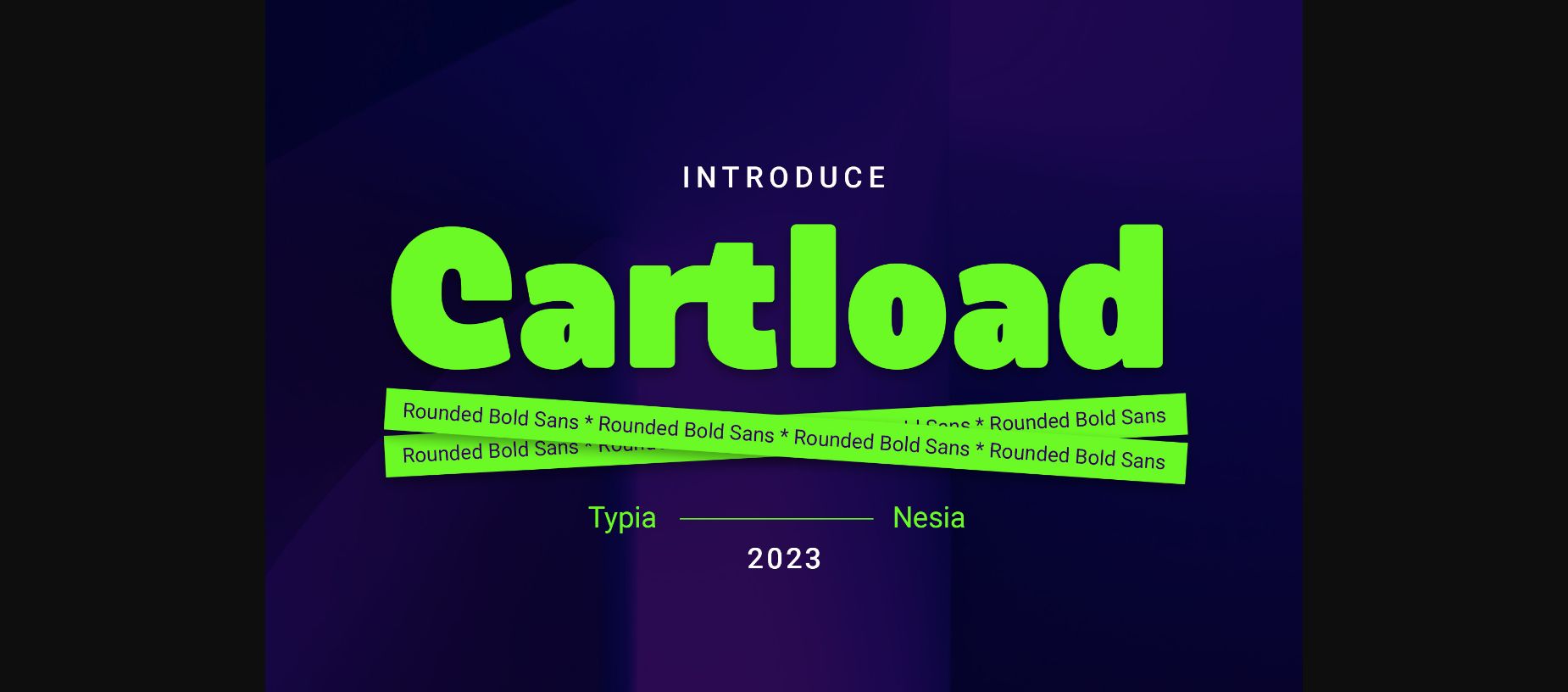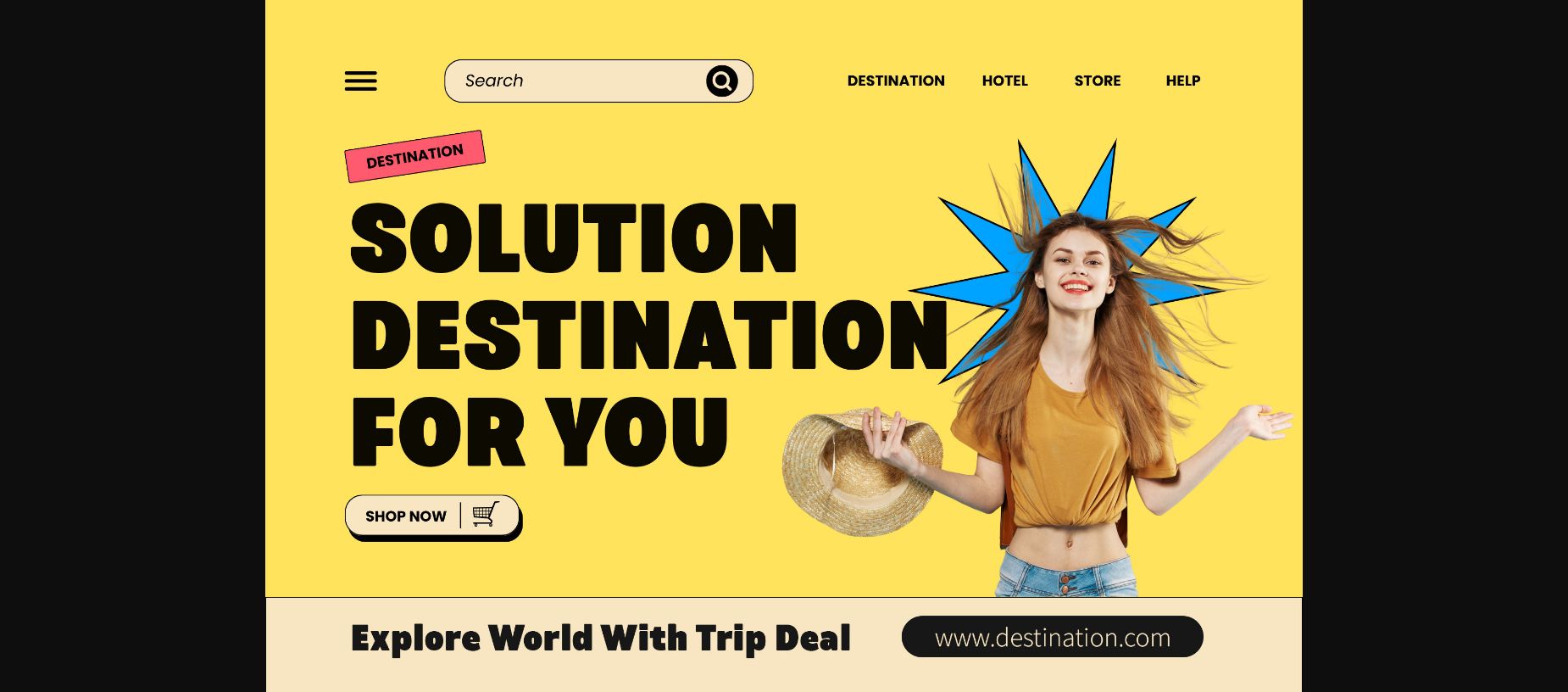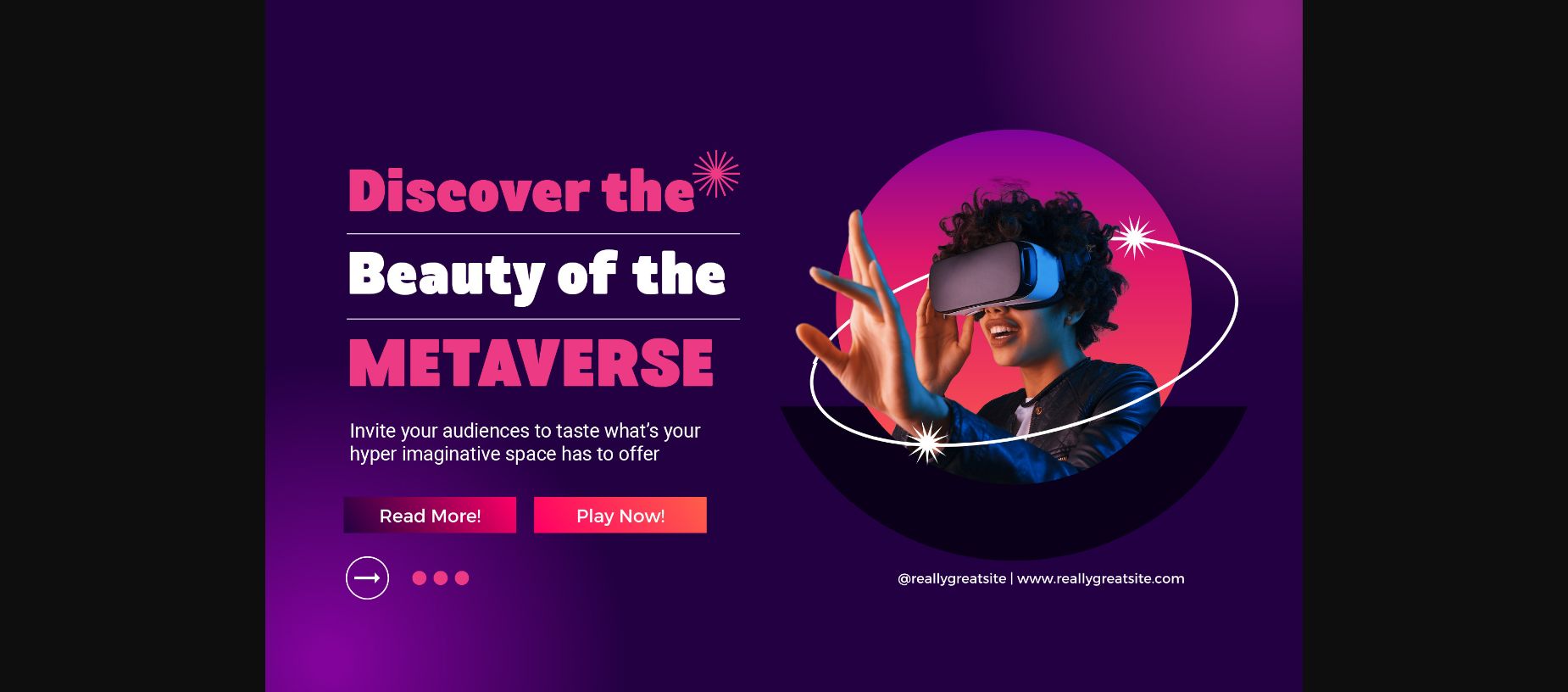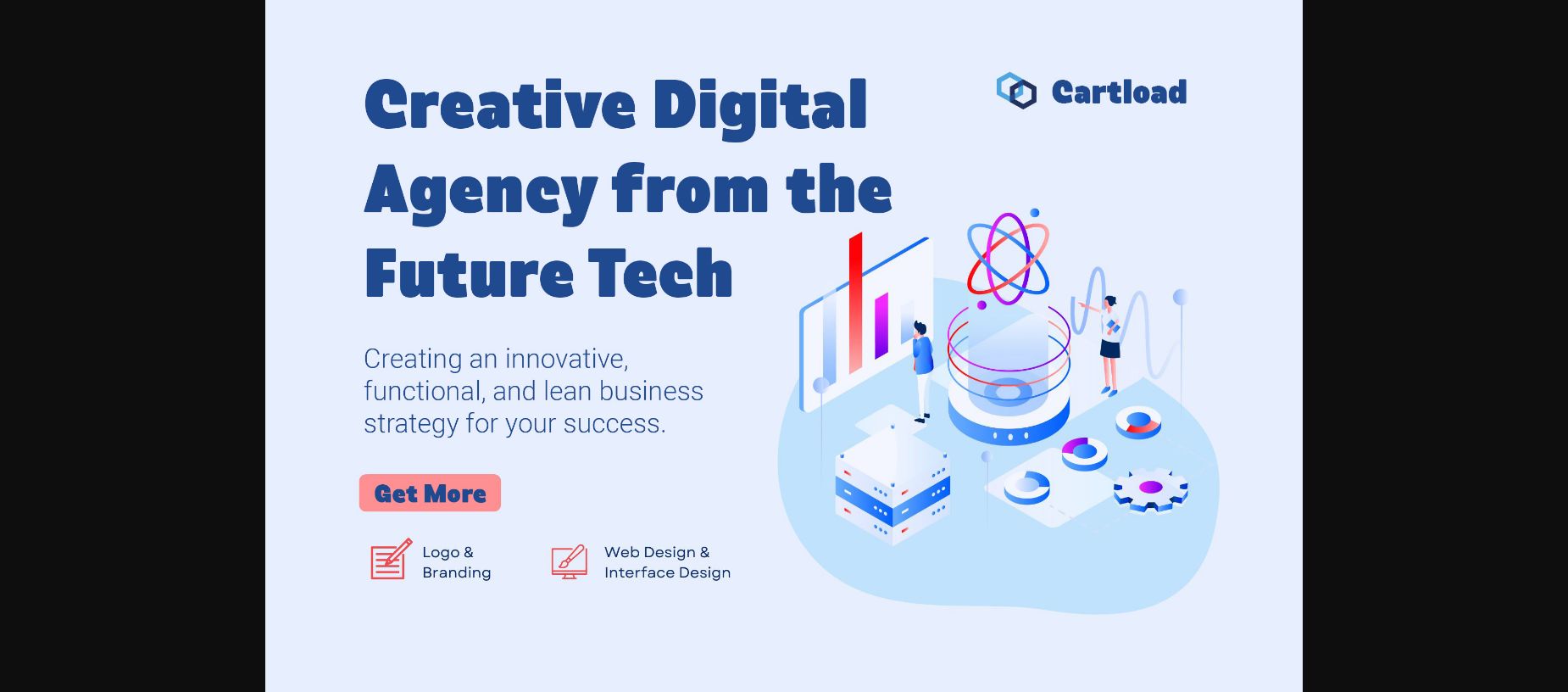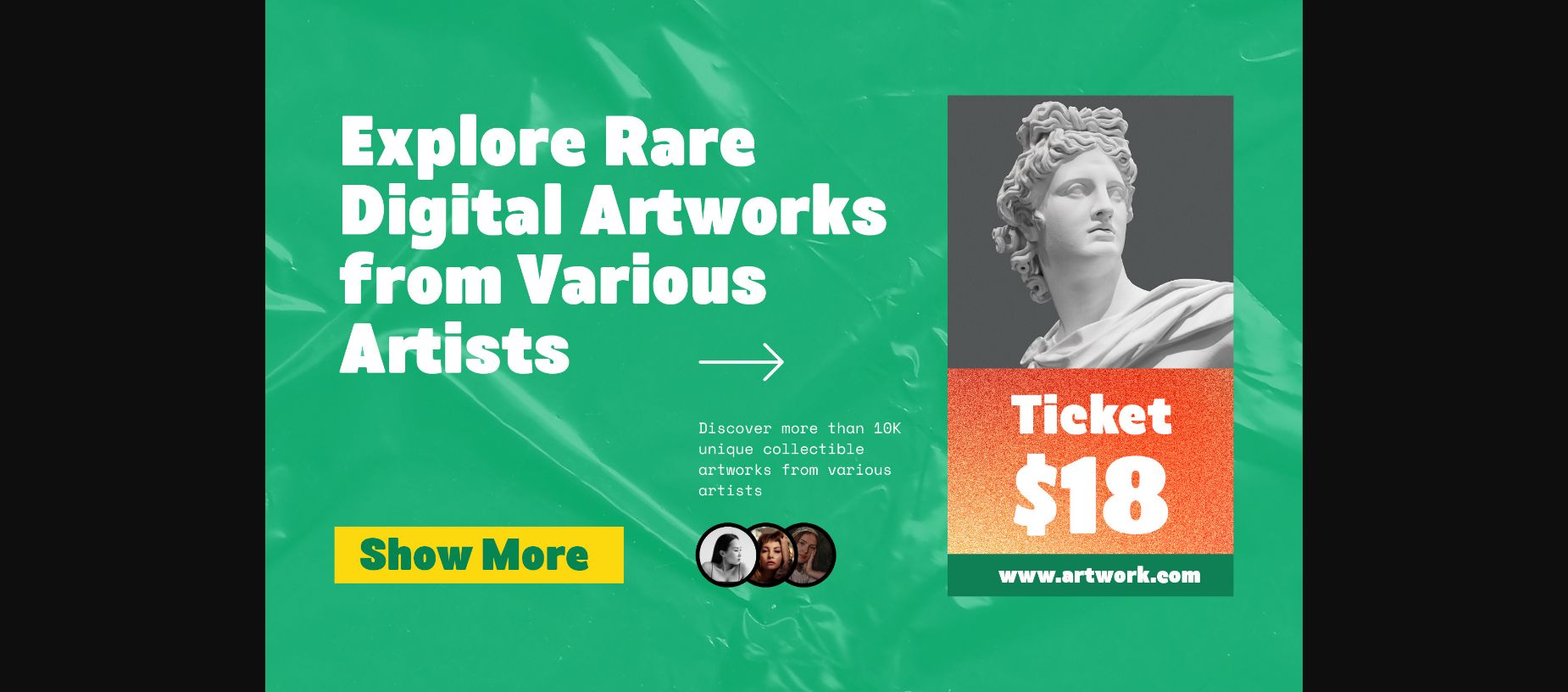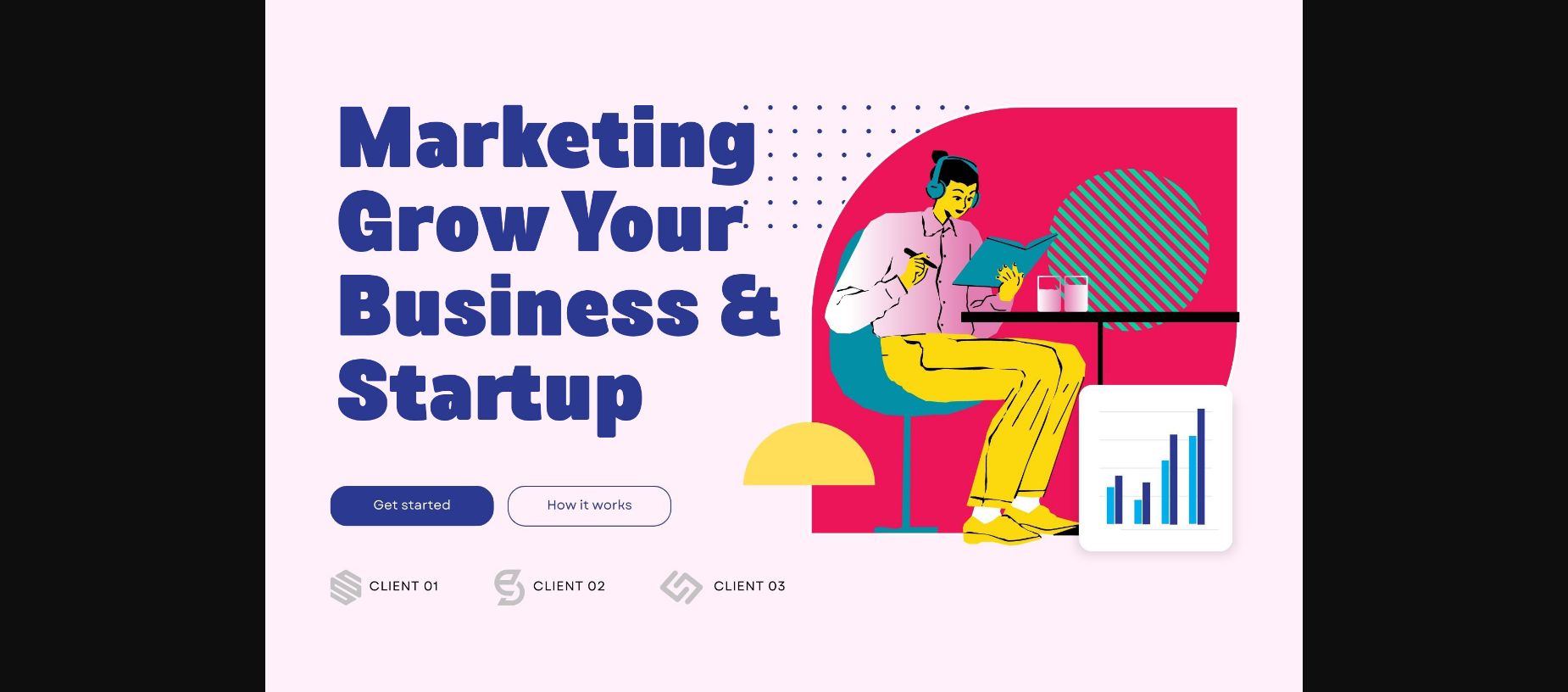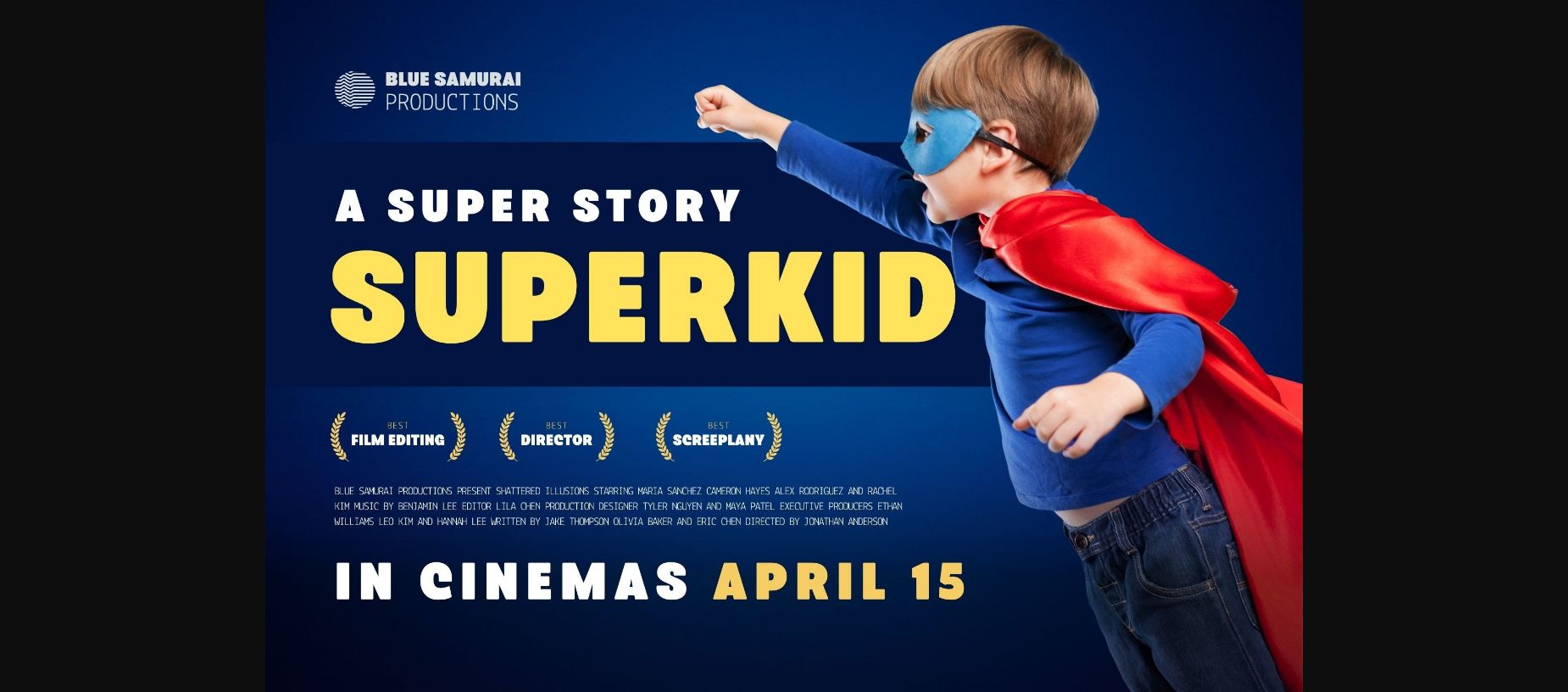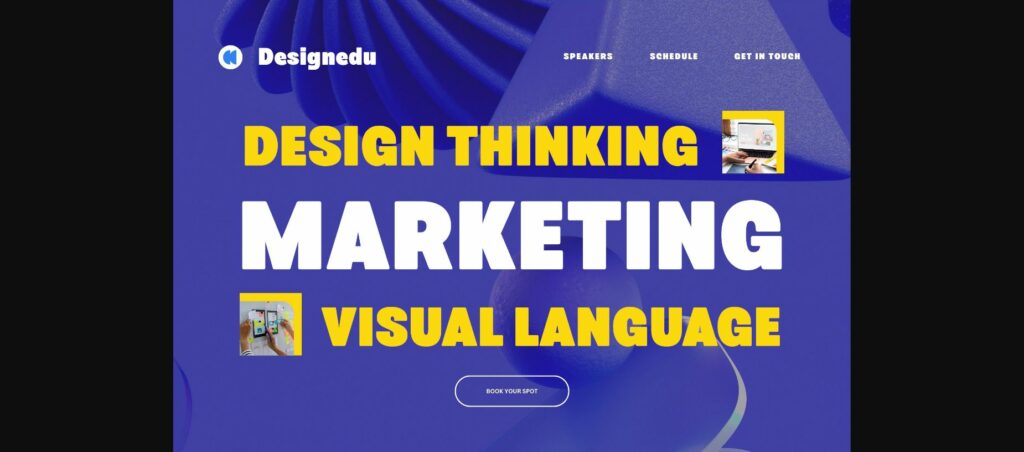
Cartload Font
About Cartload Font
Cartload Font is a stylish and modern rounded bold sans-serif typeface. With its bold appearance, Cartload Font is ideal for creating eye-catching headlines and graphic designs. It is suitable for various design projects such as branding, packaging, advertising, and more.